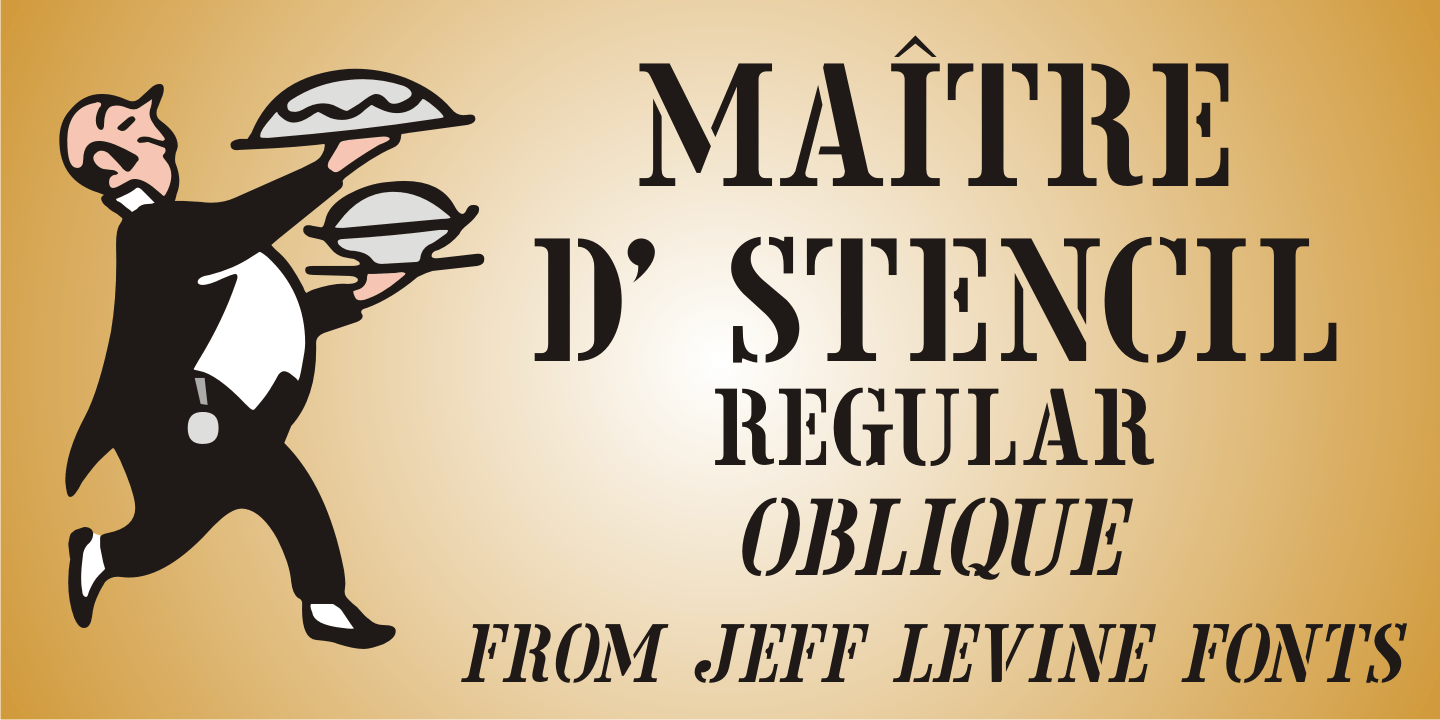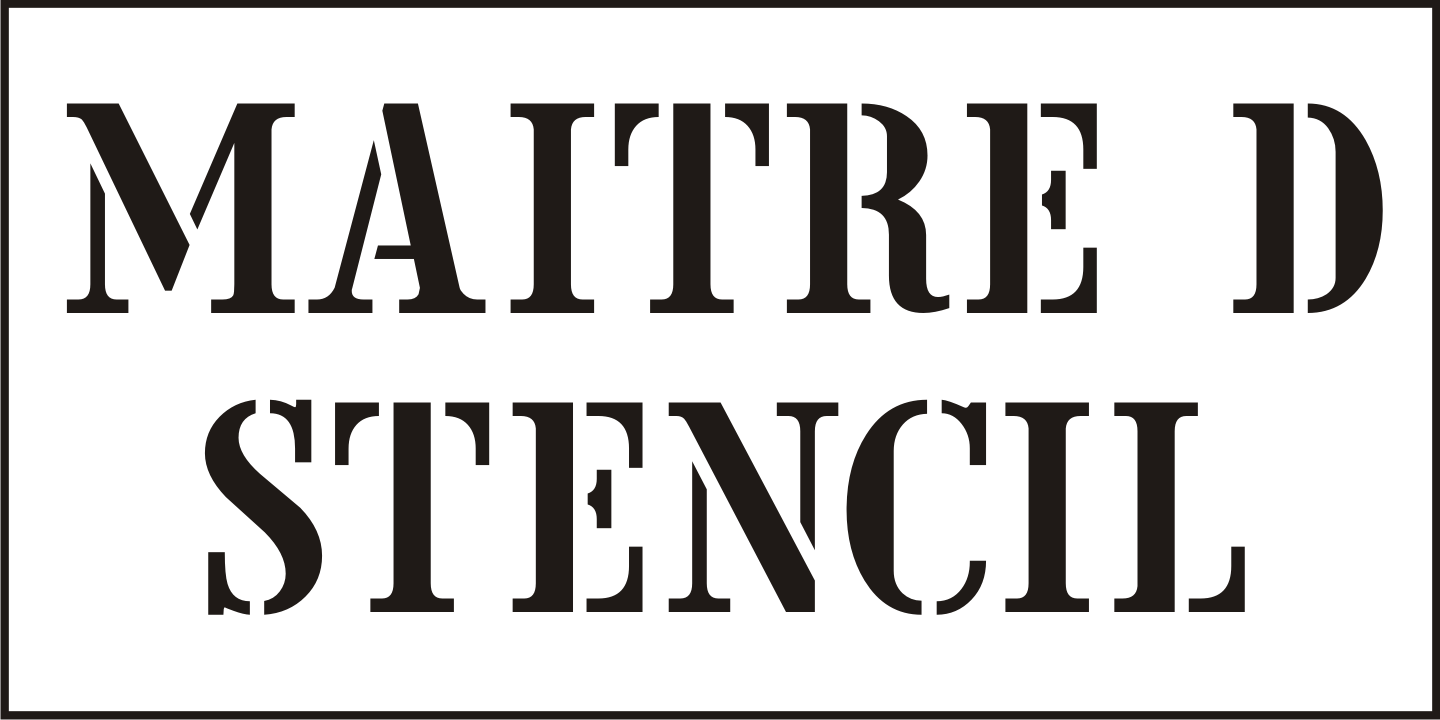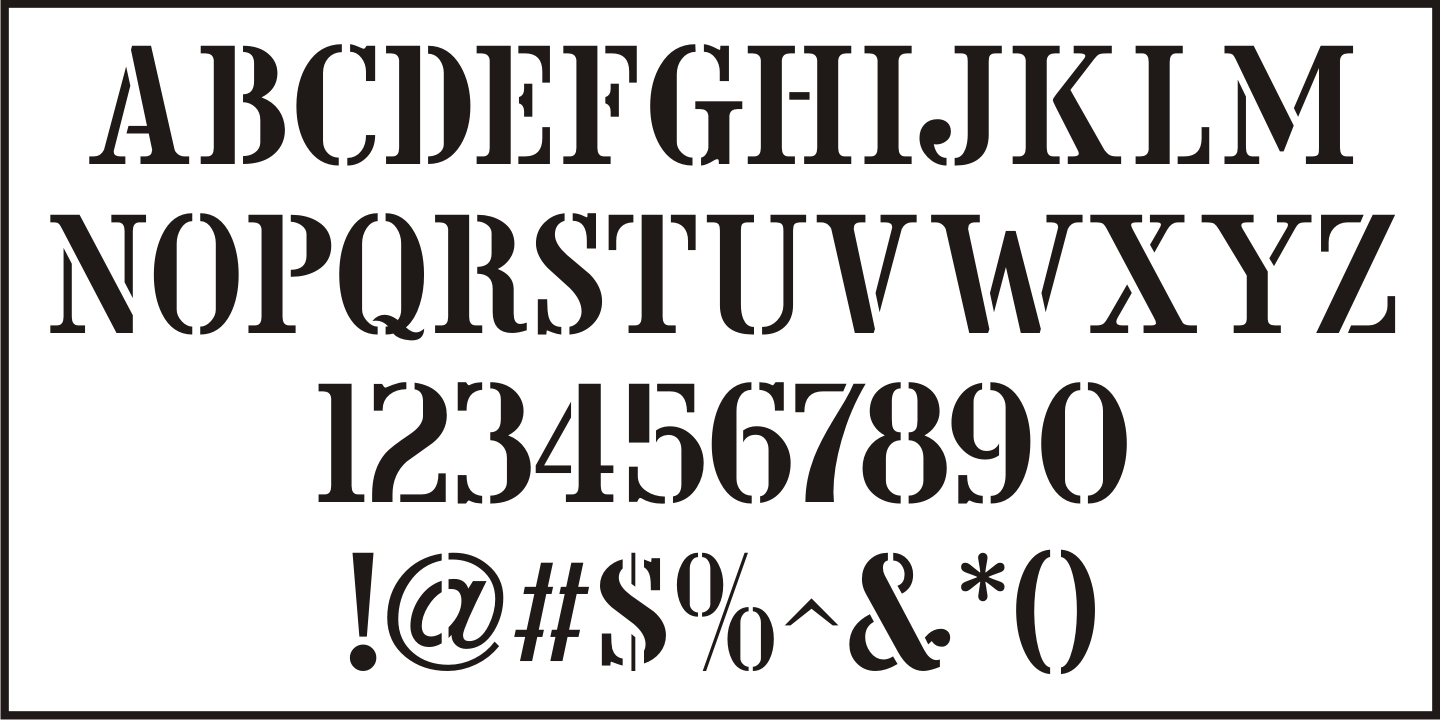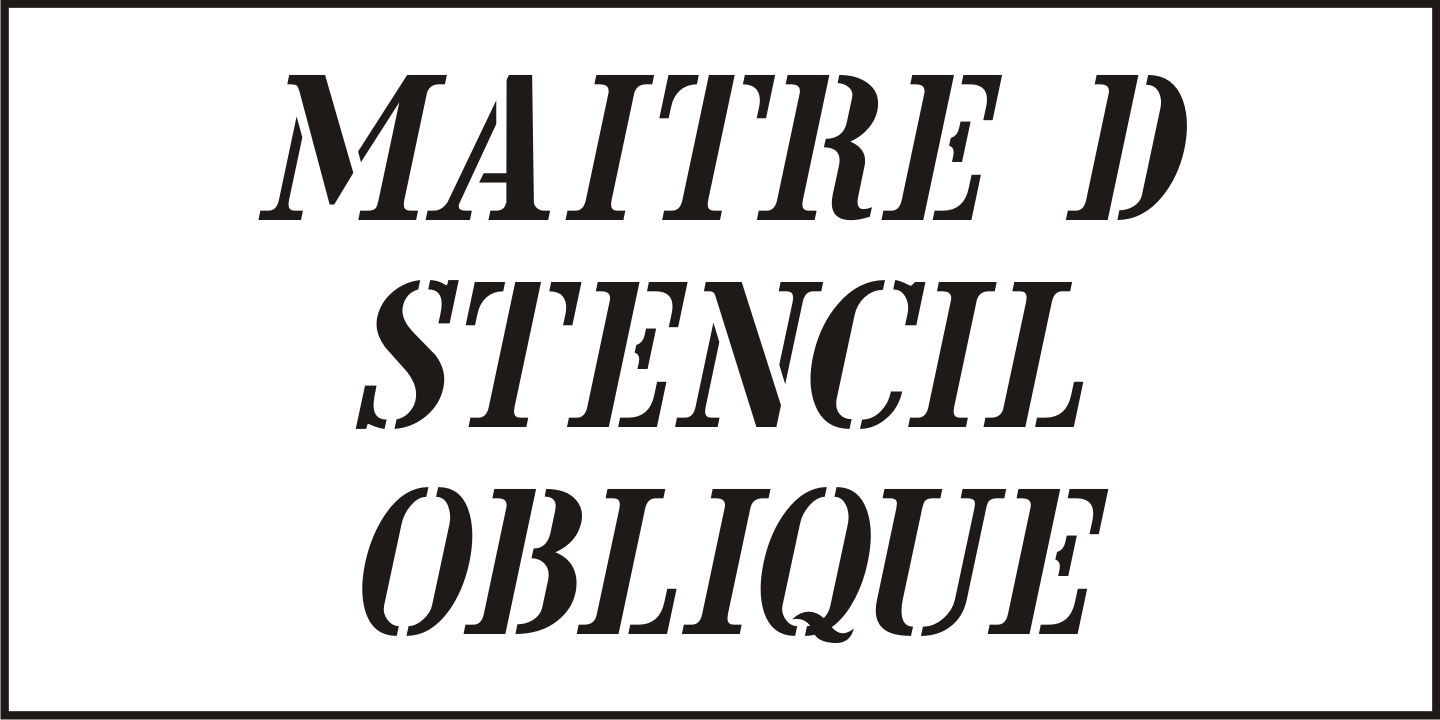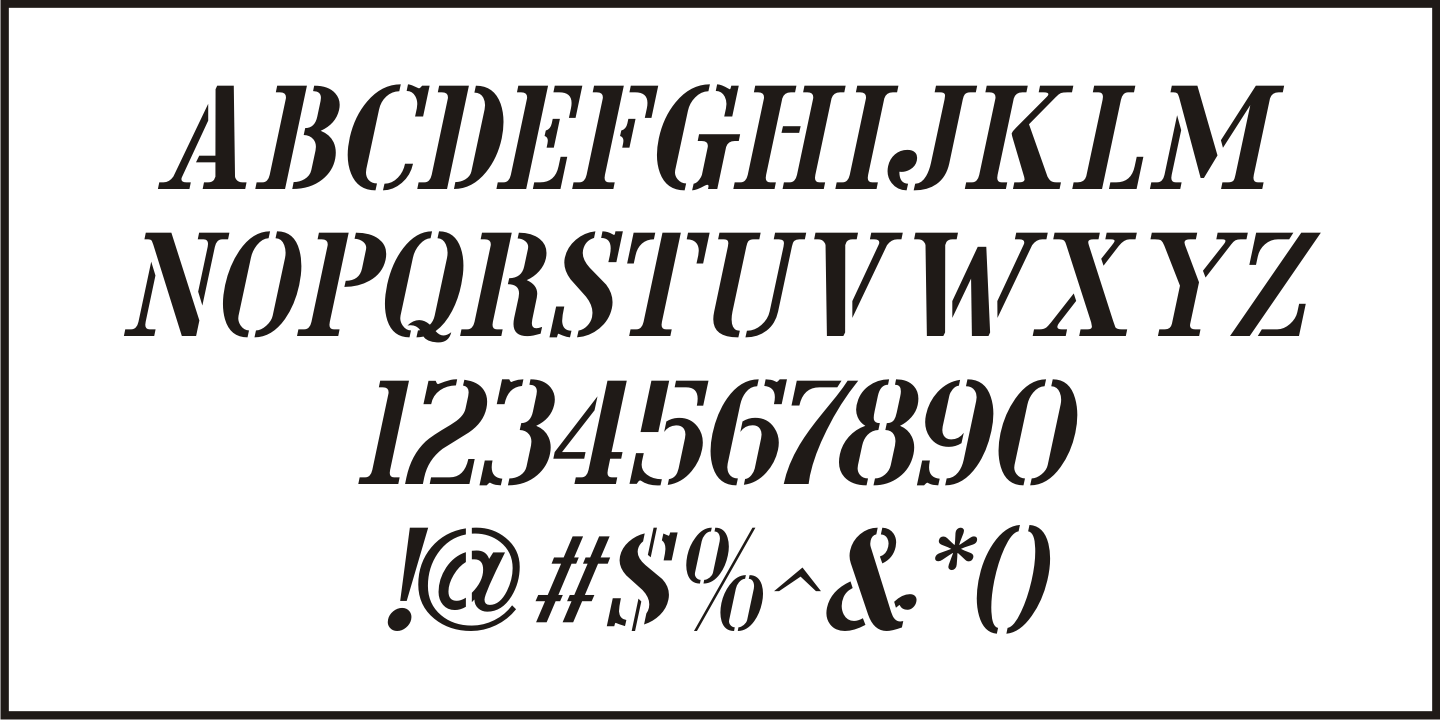
Maitre d Stencil
Maître d' Stencil JNL is based on an alphabet example found in the 1949 French lettering book “Album de Lettres Arti”, and is available in both regular and oblique versions.
Maitre d Stencil JNL Regular by Jeff Levine Fonts